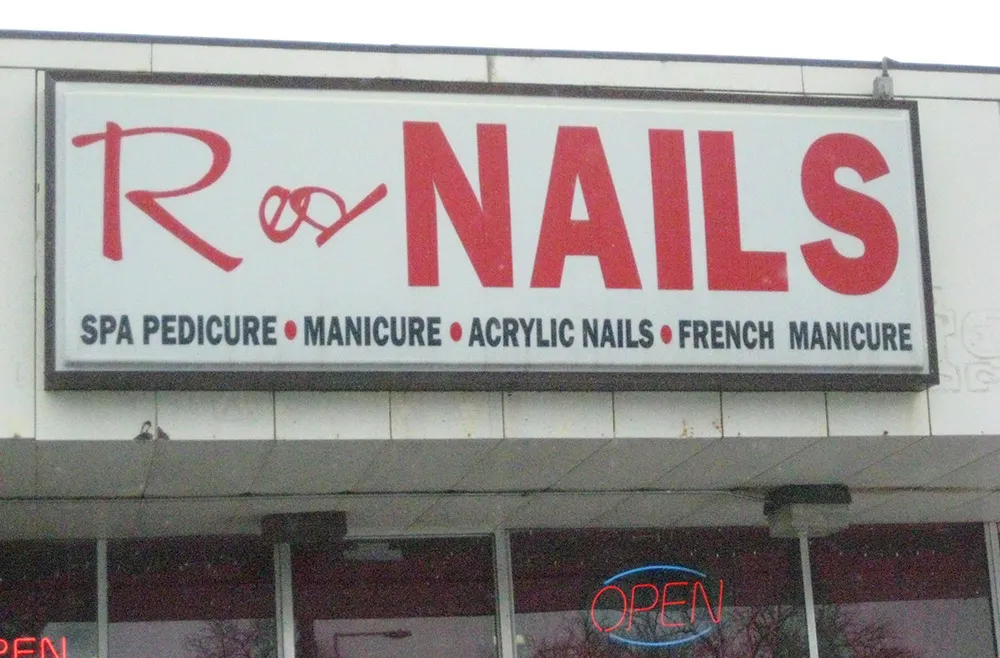
At first glance, I thought it said “R & Nails” with some sort of weird ampersand, but a second look reveals that it actually says “Red Nails.”
I wouldn’t recommend hiring a graphic designer to do a manicure, either.
What are the odds that a guy with a bass drum walks past the Holcomb-Henry-Boom Funeral Home on Snelling Avenue in Saint Paul while I’m stuck at a stop light and happen to have a camera with me? One out of one, apparently.
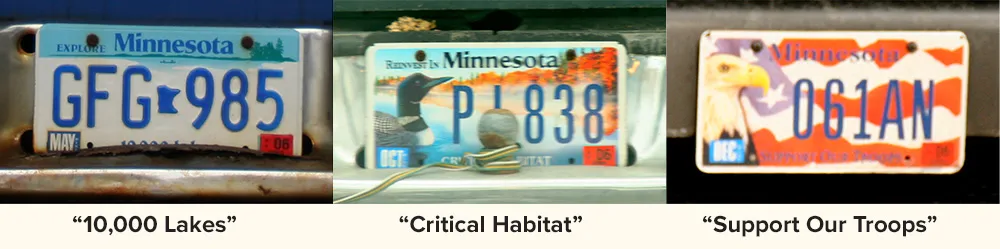
For the last couple decades or so, automobile license plate design has become increasingly poor. In Minnesota, we’ve lived with the stylized lake shore design (top left) since the early 1980s. I have never cared for it much. I prefer the way license plates used to look—plain design, two contrasting colors, name of the state and a slogan, with large, easy-to-read numbers. Simple and clear.
States have long seen license plates as a sort of advertisement, as evidenced by the obligatory slogan. New production methods, developed in the 1970s at 3M, a Minnesota company, allowed greater freedom than the old stamp and paint method. The current Minnesota “10,000 Lakes” design was one of the early ones and hasn’t changed much over the years. Recently, though, things have been getting strange.
First there was the “Critical Habitat” plate (middle). For an extra fee, you make a small contribution to help preserve wetlands and such, and let everyone know it by sporting this plate. When I first saw these, I was struck by two things. One, it looks like a little wildlife painting.Some people like that sort of thing, but I think it’s a bit out of place on a car bumper and makes the plate unnecessarily busy. Second, the numbers are smaller, narrower, and not raised. In fact, it looks like you could crank one out on an ink jet printer. The font itself is not the old standard license plate font, but some sort of artificially condensed version of Univers. It’s noticeably harder to read than the standard plates. And notice how the hitch obscures the second letter. There are a lot of cars with hitches in Minnesota. Did they not think of this?
But the “Critical Habitat” plate pales in comparison to the latest design which came out in December: The “Support Our Troops” plate (right). I don’t mind people wanting to show their support for the troops. What I have a problem with is the design. It looks as if it was intentionally laid out to make it hard to read the plate number. It’s got the same font problem as the “Critical Habitat” plate. On top of that, the number is printed in dark blue over a wavy, red stripe. Any competent graphic designer will tell you that dark blue on red is a terrible combination for readability. The wavy shape doesn’t help. Because of the reflective material used, it’s not so hard to read at night with a light shining on it. The background is more reflective than the numbers giving it decent contrast. But during the day, depending on the lighting conditions, these plates are sometimes impossible to read. Especially with numbers that have similar shapes on the top and bottom, like 0, 3, 6, 8, and 9.
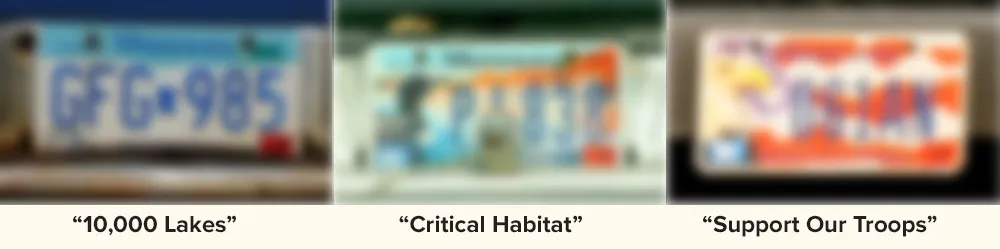
I’ve blurred all three plates in the bottom three photos just to show how much harder these new plates are to read under less than ideal conditions. You can still easily make out the first one, but the others are anyone’s guess.
I always thought license plates were meant to make it easy to identify individual vehicles, say if a car is stolen or used in a crime. I guess that’s not such a big deal anymore compared to the fundraising and promotional opportunities.